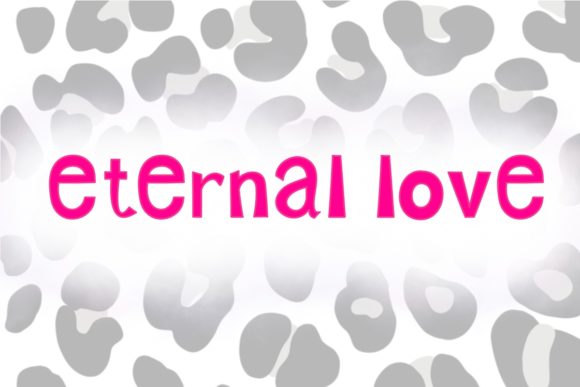
Unveil the Timeless Beauty of Eternal Love Font - A Stroke of Romance for Your Design Endeavors
In a world where visual communication reigns supreme, the choice of font holds immense power in conveying emotions and creating captivating designs. Introducing Eternal Love Font, the epitome of elegance and charm, meticulously crafted to transform your creative visions into captivating masterpieces.
Eternal Love is more than just a font; it's an artistic expression that evokes a sense of timeless romance and sophistication. Its delicate outlines dance across the page, creating an aura of ethereal beauty that captivates the senses. Whether you're a seasoned designer or just starting your creative journey, Eternal Love Font will elevate your projects to new heights of visual allure.
Immerse yourself in the boundless possibilities that await with Eternal Love Font. Its versatility knows no bounds, lending itself seamlessly to a myriad of design applications. From enchanting posters that whisper tales of love to alluring flyers that capture hearts at first glance, Eternal Love Font is your perfect companion. Let your imagination soar as you craft stunning wedding invitations, heartfelt greeting cards, or mesmerizing social media posts that leave a lasting impression.
Step into the realm of digital artistry and experience the magic of Eternal Love Font in app design. Its enchanting strokes bring life to user interfaces, igniting emotions and creating an immersive experience that users will cherish. Let your creativity blossom as you weave tales of love and enchantment through captivating app designs that leave an indelible mark.
With Eternal Love Font, you're not just downloading a font; you're embarking on a journey of creative expression and emotional connection. Its captivating charm will transform your designs into works of art, leaving your audience spellbound. Embrace the allure of Eternal Love Font and elevate your creativity to new realms of beauty and grace.